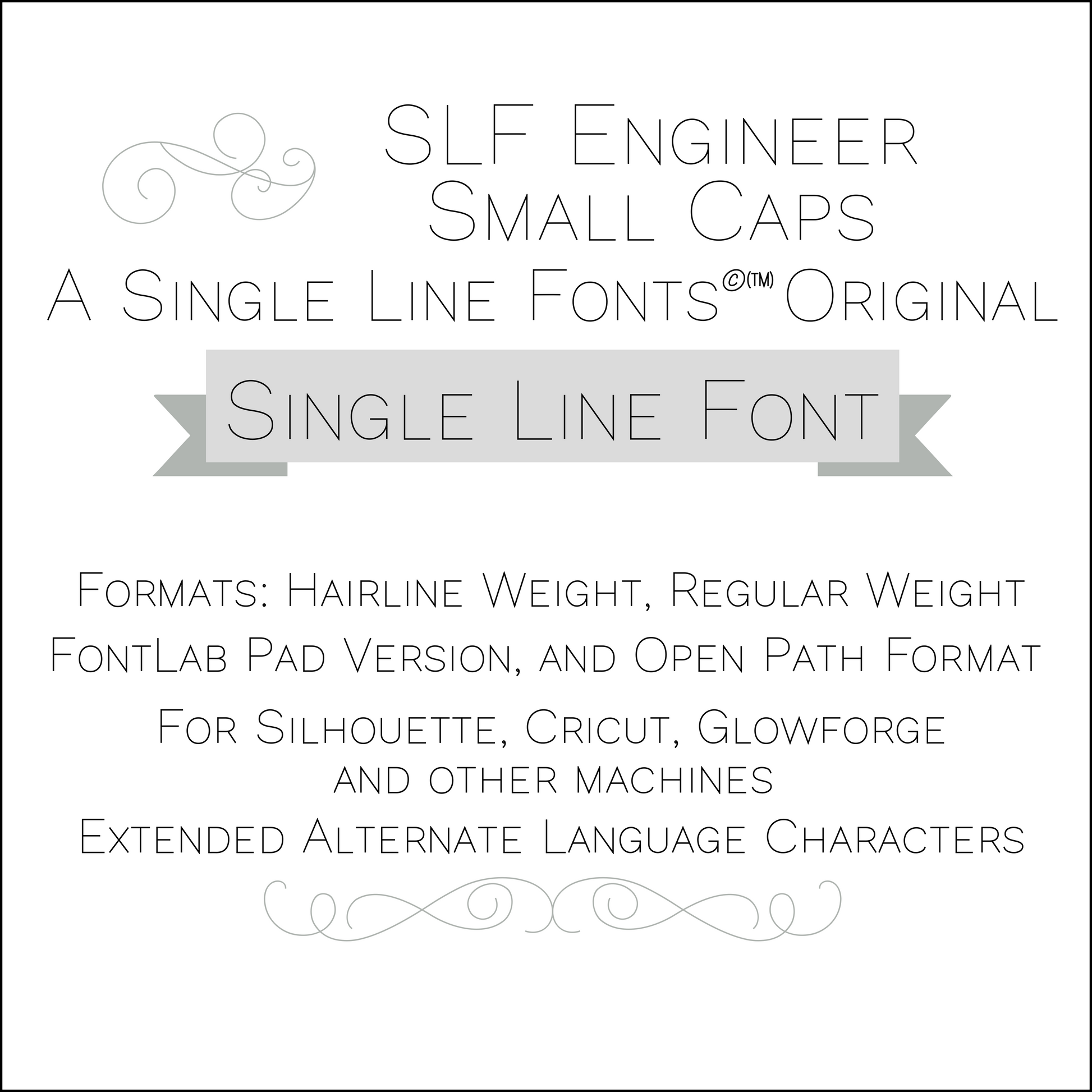
SLF Engineer Small Caps – Single Line Technical Font for Glowforge, Cricut & CNC
SLF Engineer Small Caps is a technical, precision-style single line font that combines engineering clarity with maker-friendly simplicity. Its uniform lines and clean spacing make it ideal for applications requiring precision engraving, CAD-style labeling, CNC routing, laser scoring, and modern graphic design.
This monoline font includes a complete character set with uppercase letters, numbers, punctuation, and essential symbols for technical and creative projects.
• Technical diagrams, architectural labels, machine interfaces